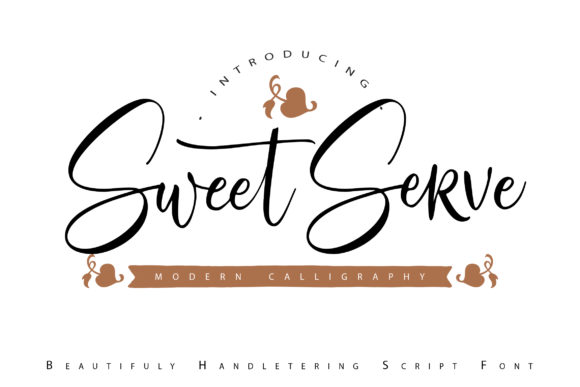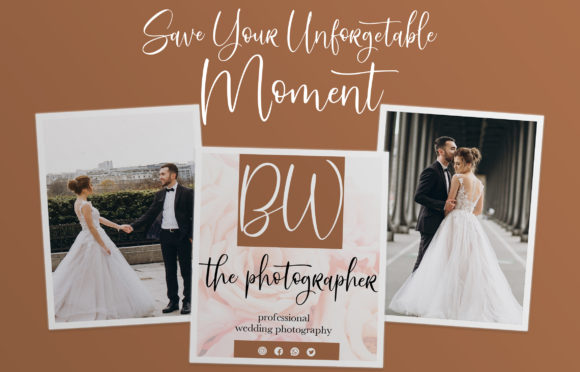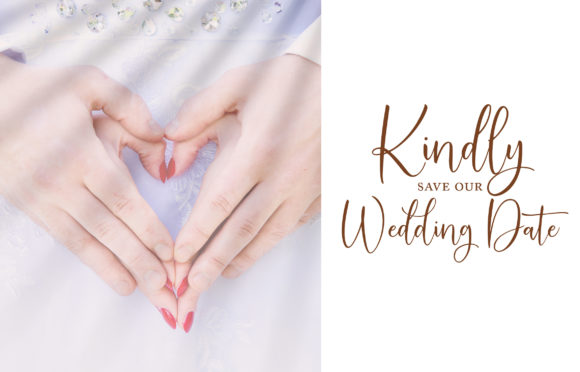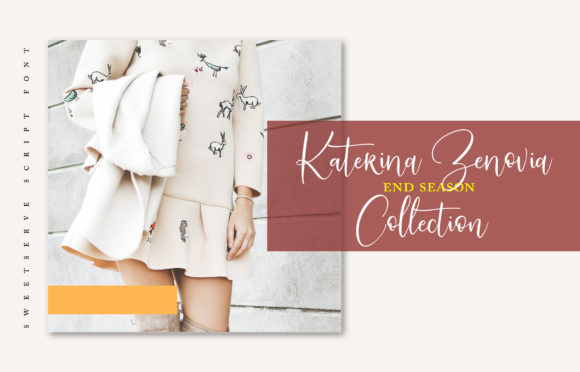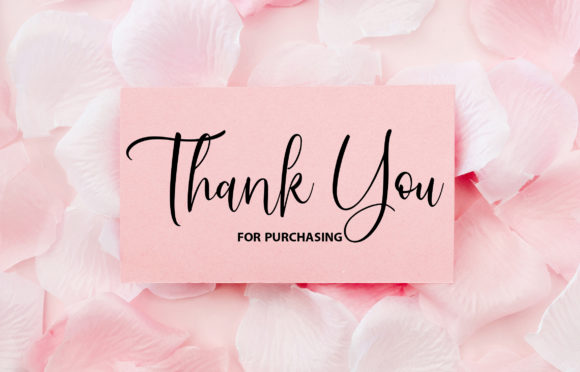
Sweet Serve Font
About Sweet Serve Font
Sweet Serve is a tasteful handwritten font. This enchanting font will turn any creative idea into a true standout. Get creative with its unique look, and use it to brighten up any crafting project.